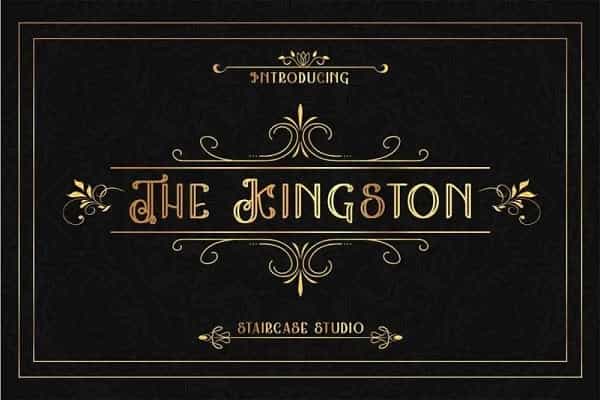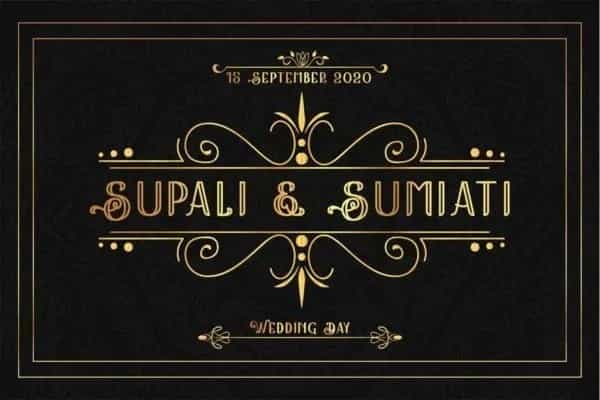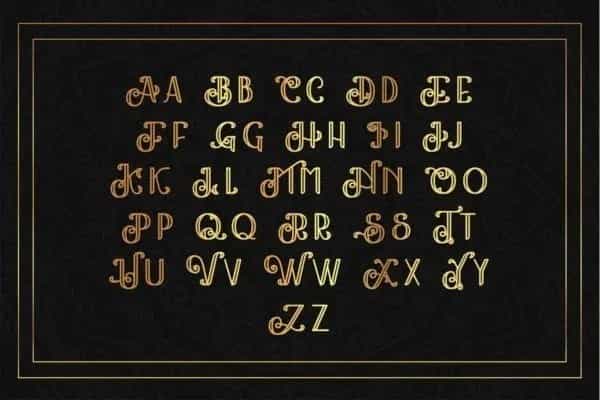
Discover The Kingston Script Font, part of the Calligraphy Retro Script collection—a versatile and unique font perfect for adding a personal touch to your projects. Download it for free and enjoy crafting designs with style, from invitations to social media posts. This font is available exclusively for personal use, giving you the freedom to create without limits. Unlock your creativity with The Kingston Script Font today!
The Kingston Font with new and modern styles. A collection of letters and numbers suitable your projects also great for Logotype, Branding Design, Logo Design, Digital Lettering Arts, T-Shirt/Apparel, Poster, Magazine, Signs, Wedding Invitation, Birthday Invitation, Advertising Design, and any design needs.